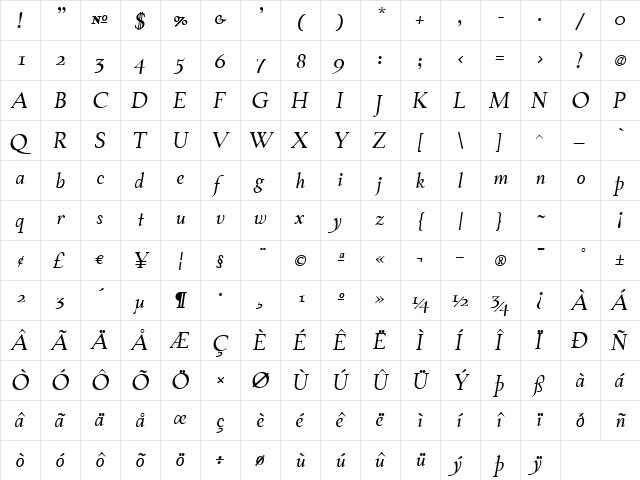
TaskItalic Regular Font Preview
TaskItalic Regular
TaskItalic Regular Font Details
Design Context for TaskItalic Typeface
TaskItalic is a composed and adaptable typeface that performs quietly and consistently across a wide range of design contexts. Its italic angle brings a sense of urgency and motion to the letterforms.